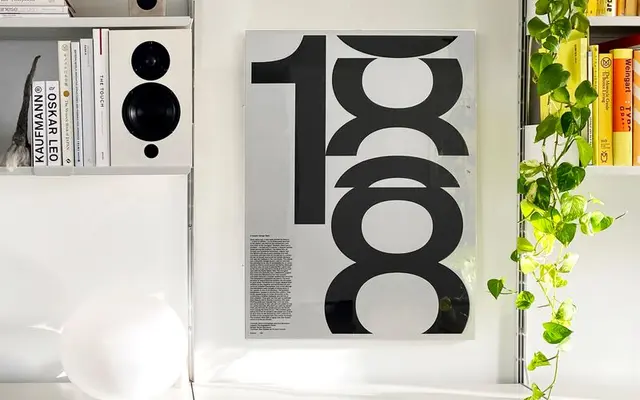
New Grotesk
Archive Foundry · Sam Powell · 2019
A proportionally balanced neo-grotesque by Sam Powell with a restrained European character, released in five weights with italics and an extended mono variant.
Designed by Sam Powell and published in October 2019, this neo-grotesque draws on early modernist European grotesques to produce a neutral, functional typeface suited to a wide range of applications. Five weights run from Light to Bold, each with a matching italic, and an extended family includes New Grotesk Mono. The glyph set covers extensive Latin script support across dozens of languages, with stylistic alternates offering additional flexibility.
The foundry classifies it as neo-grotesque, with proportional balance and a classic European grotesk aesthetic drawing on early modernist forms.